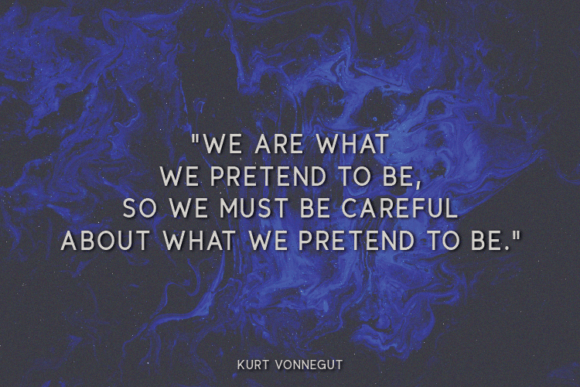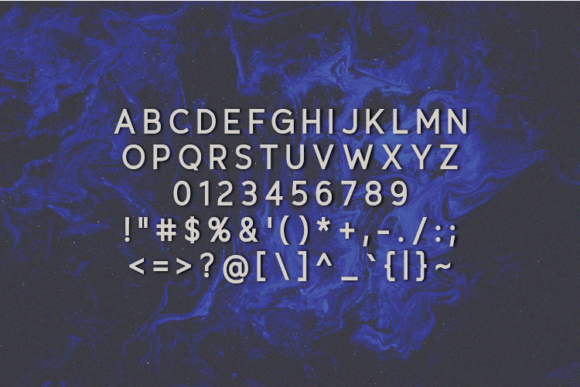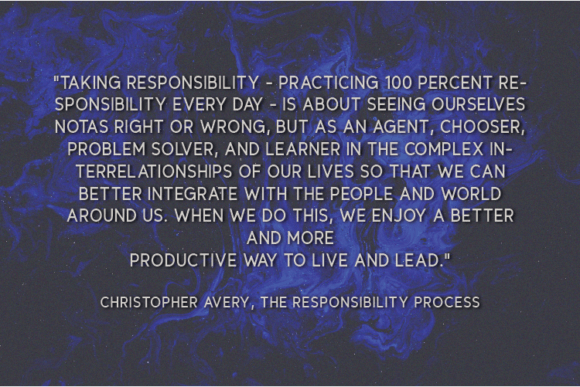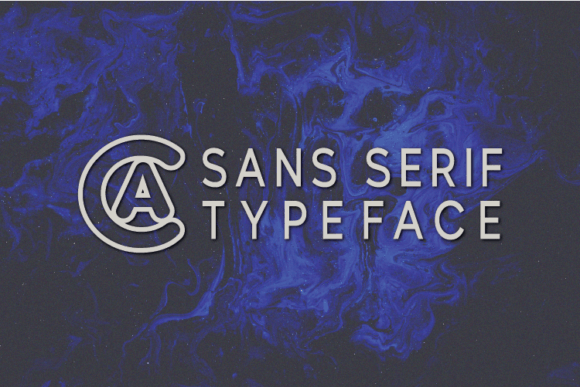
Introducing Heavenly Font: Elevate Your Designs with Elegance and Versatility
In the world of typography, a font can make or break a design. It’s the foundation upon which creativity is built, and the right choice can elevate a project from ordinary to extraordinary. For designers, crafters, and anyone looking to add a touch of sophistication to their work, the Heavenly Font is a game-changer. This versatile, modern, and classy sans serif font is perfect for a wide range of applications, from logos and weddings to invitations, quotes, advertisements, and more.
The Characteristics of Heavenly Font
Heavenly Font boasts a sleek and modern design, characterized by its clean lines, simple shapes, and a complete lack of embellishments. This sans serif font is not just aesthetically pleasing; it’s also highly versatile. Its neutral appearance makes it an excellent choice for various design projects, allowing the content to take center stage while providing a subtle yet sophisticated backdrop.
One of the standout features of Heavenly Font is its incredible versatility. Whether you’re working on a logo that needs to convey elegance and professionalism, or on wedding invitations that require a touch of class and romance, Heavenly Font fits the bill perfectly. Its adaptability extends to various other applications, including:
- Logos: Create memorable and impactful logos that stand out.
- Weddings and Invitations: Add a touch of sophistication and romance to your wedding and event invitations.
- Quotes: Make your quotes and sayings more compelling and visually appealing.
- Advertisements: Elevate your ads with a font that grabs attention and conveys your message clearly.
- Print and Magazines: Enhance your print materials, such as magazines, brochures, and flyers, with a modern and classy look.
Why Choose Heavenly Font?
There are several reasons why designers and crafters are gravitating towards Heavenly Font:
- Modern Appeal: Its contemporary design ensures your projects look current and relevant.
- Ease of Reading: The clear and simple design of Heavenly Font ensures readability across various mediums.
- Customization: It offers flexibility in terms of sizing, color, and styling, making it easy to adapt to your project’s needs.
- Professionalism: Using Heavenly Font can instantly elevate the perceived value and professionalism of your work.
Tips for Maximizing Impact
To get the most out of Heavenly Font, consider the following tips:
- Contrast is Key: Use contrasting colors to make your text stand out.
- Play with Sizes: Experiment with different font sizes to create visual hierarchy.
- Combine with Images: Pair Heavenly Font with high-quality images for a compelling visual impact.
- Keep it Simple: Don’t overcomplicate your design; let the elegance of Heavenly Font shine through.
Heavenly Font is more than just a typeface; it’s a design solution that can elevate your projects to new heights. Its modern, classy, and versatile nature makes it an indispensable tool in your design arsenal. Whether you’re a professional designer or a crafter, Heavenly Font offers the perfect blend of style, readability, and flexibility. So, add it to your creative toolkit today and watch your designs come alive with elegance and sophistication.